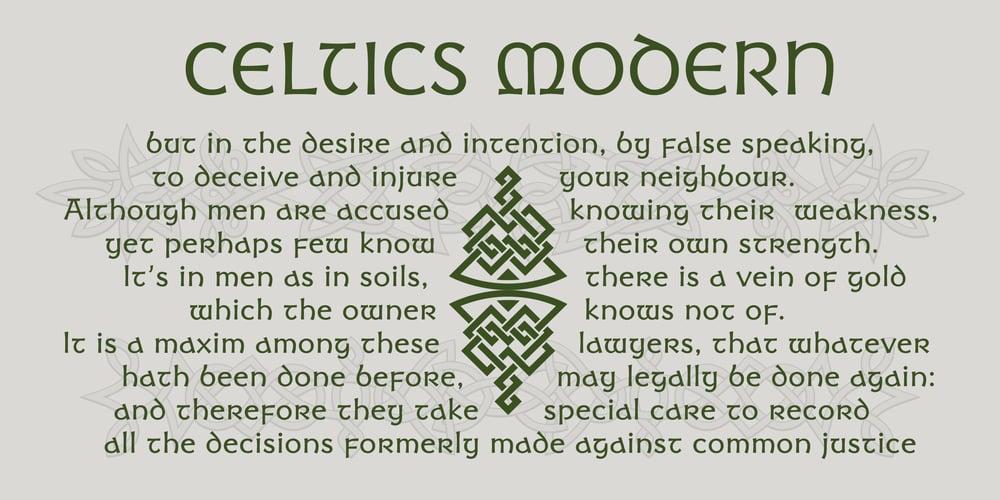
Celtics Modern
Celtics Modern font
Celtics Modern Font Family was designed by Ryoichi Tsunekawa and published by Dharma Type. Celtics Modern contains 3 styles and family package options. Inspired from ancient Celtic lettering such like insular-half-uncial. New interpretation of Celtic letters bring a whole new feel to old letterings. At the same time, the font has handwritten-style glyphs as if they were handwritten same as the ancient letters.